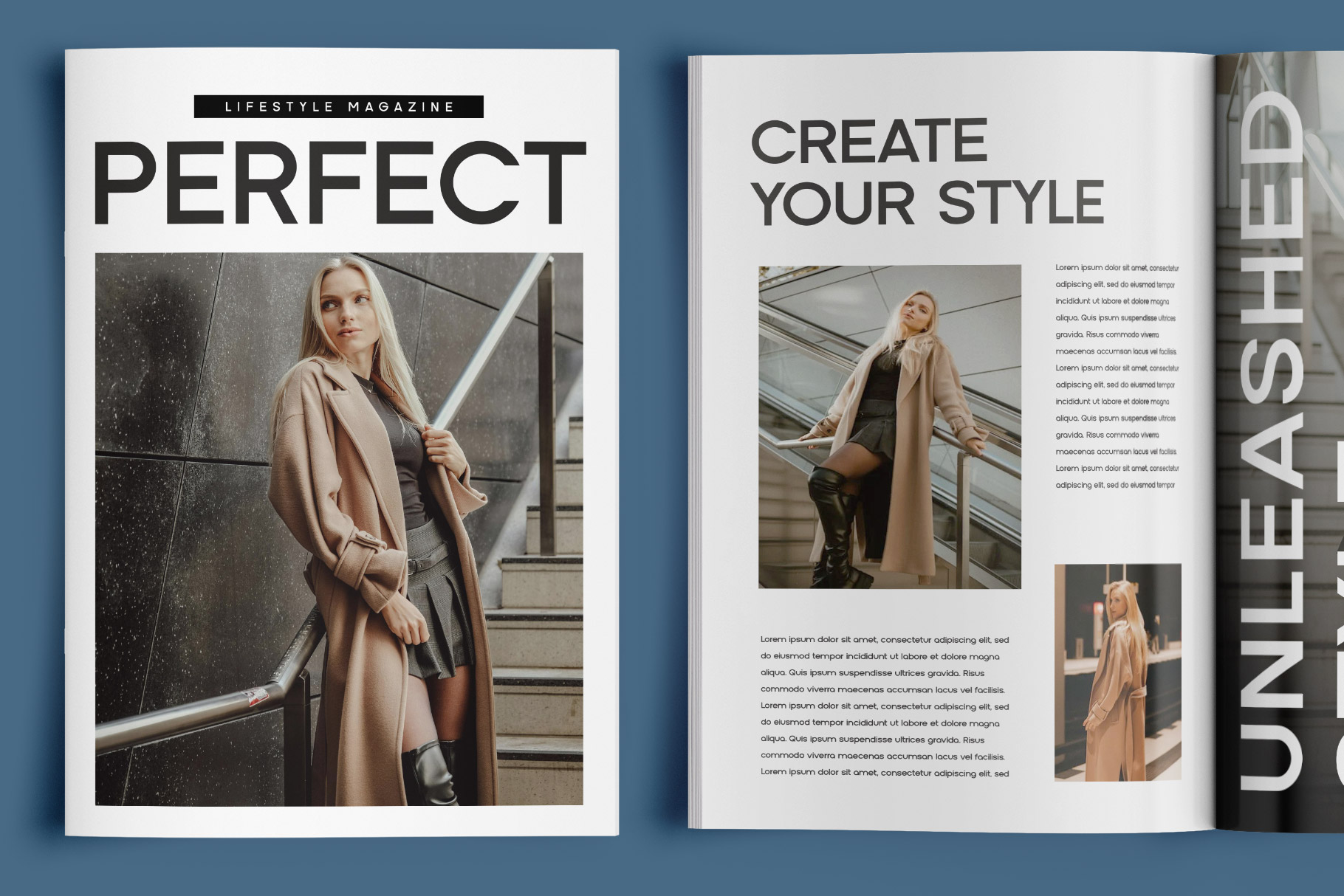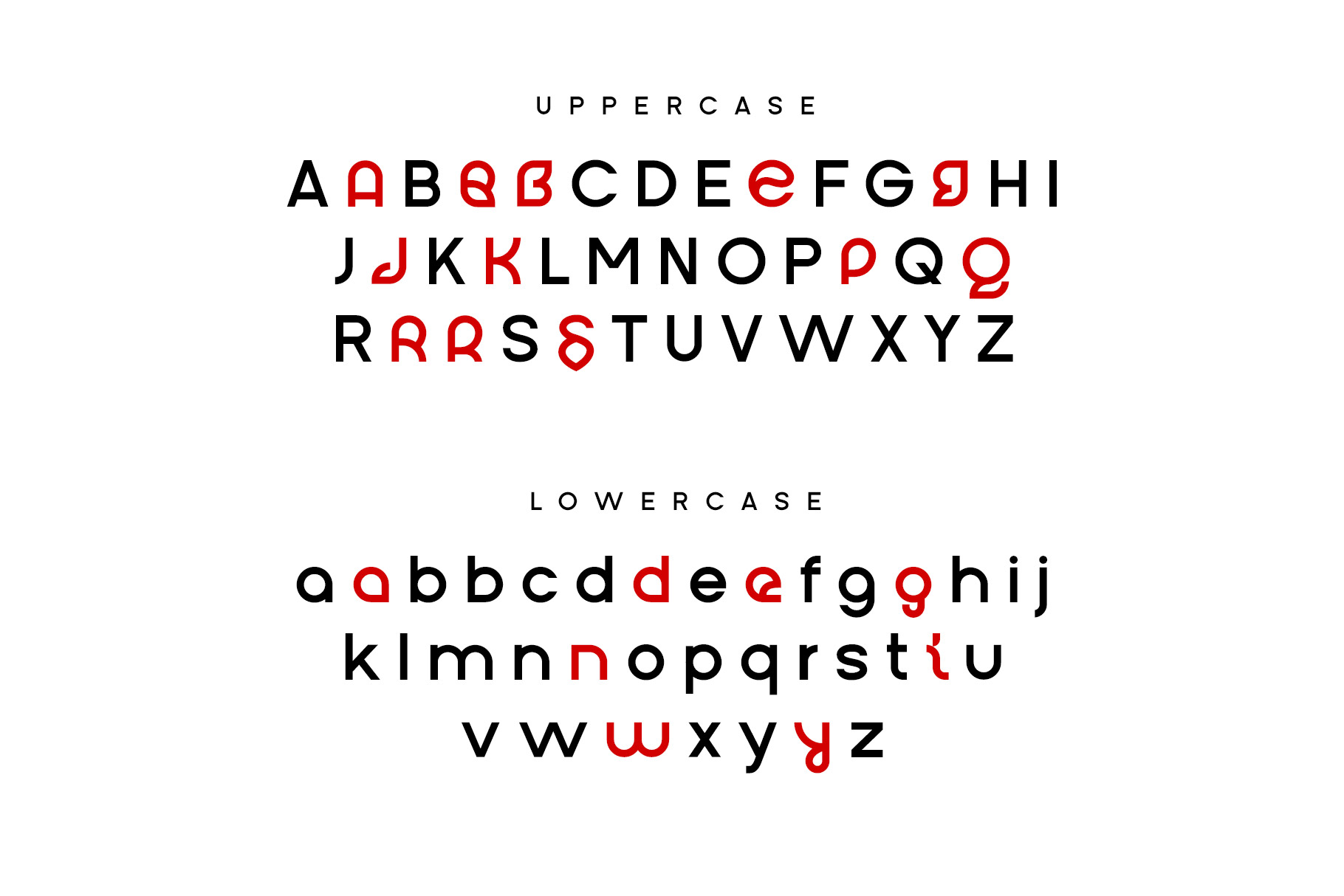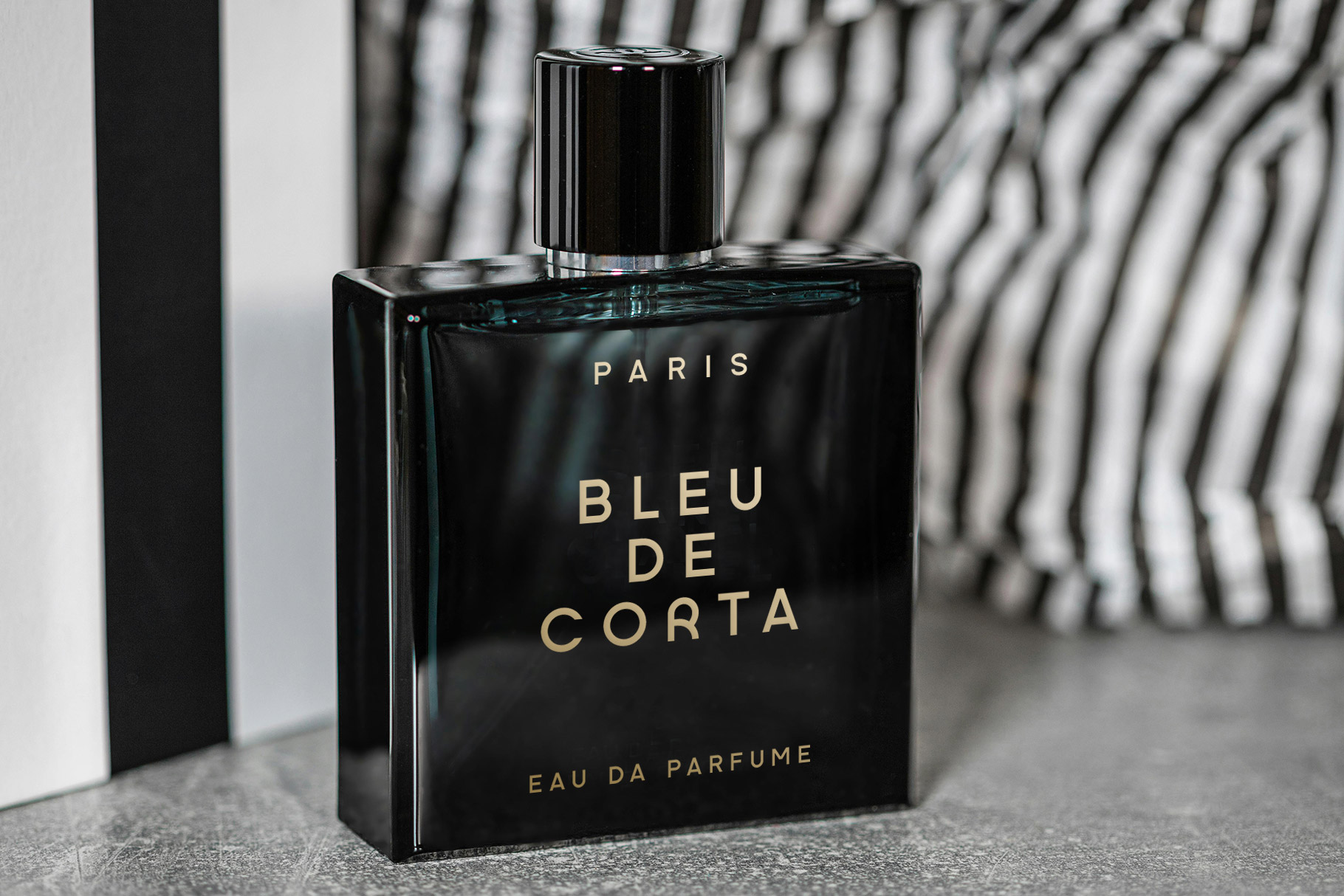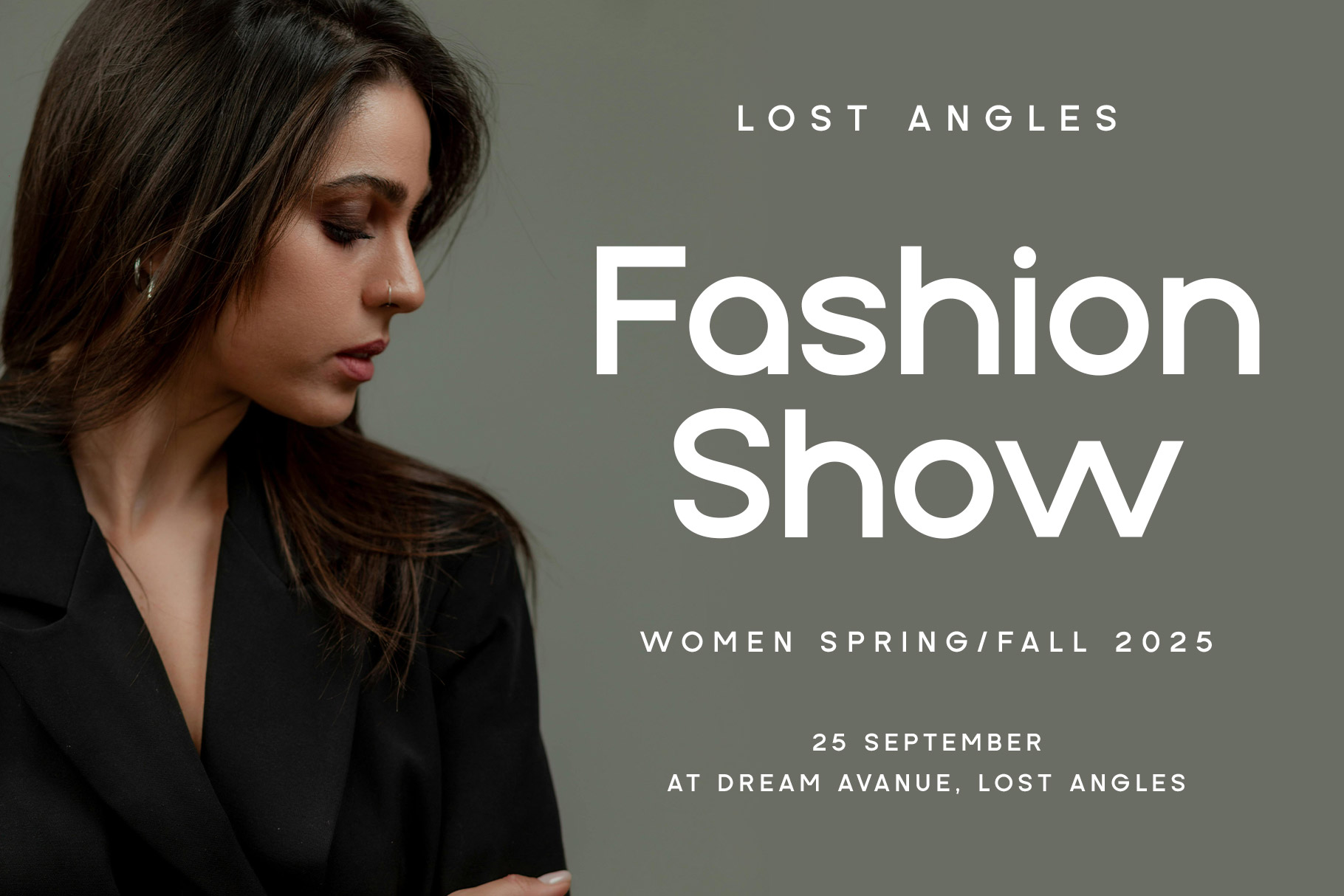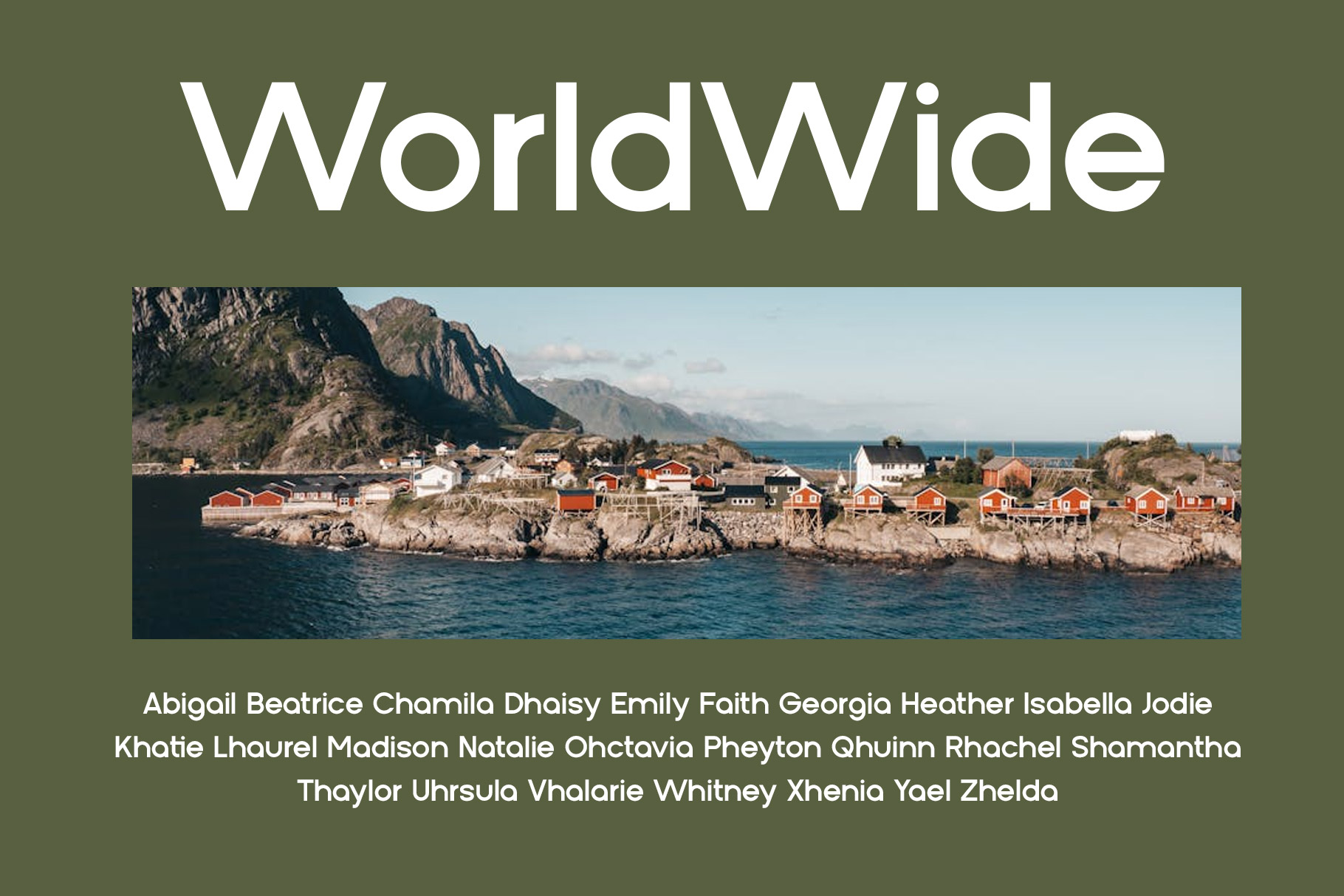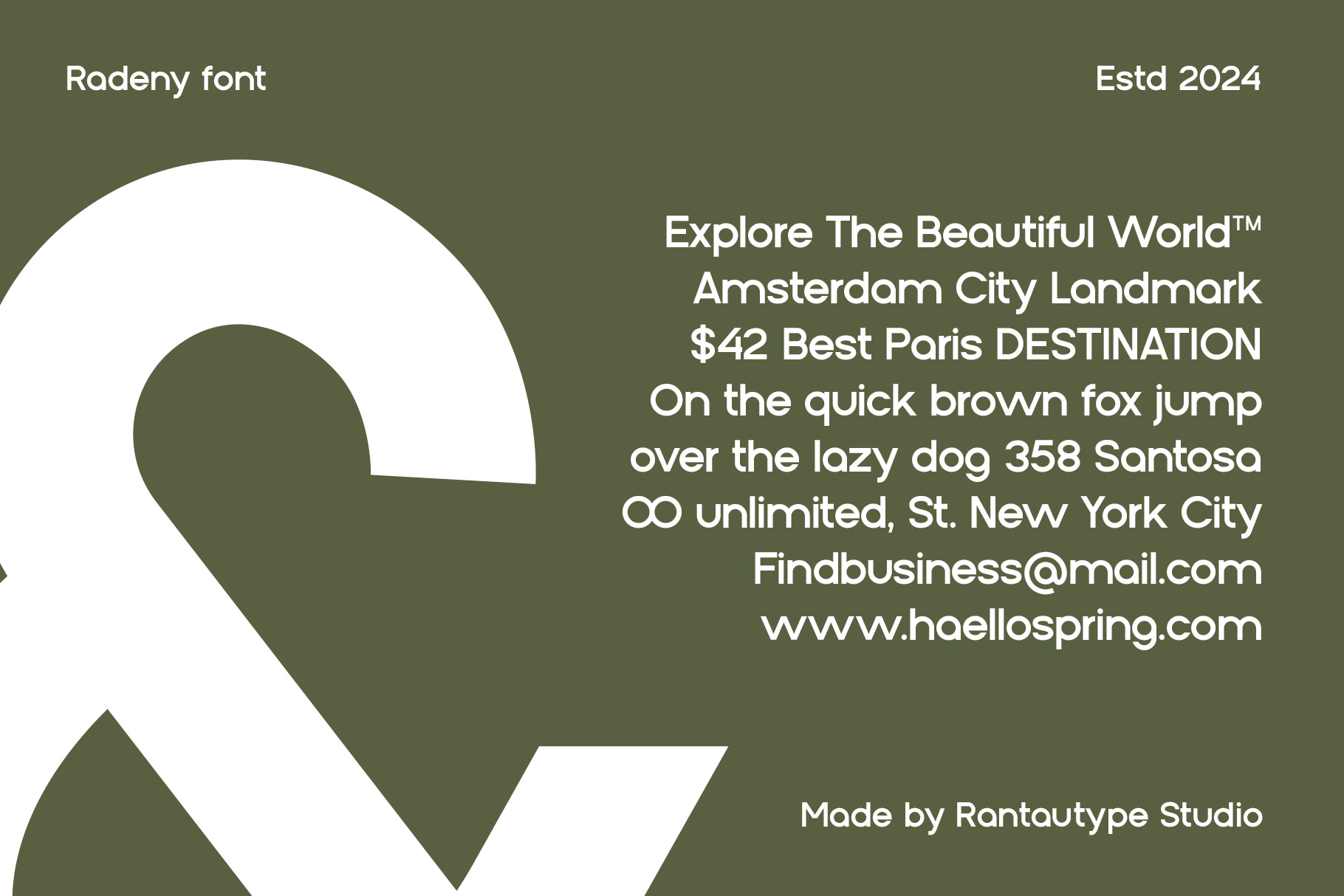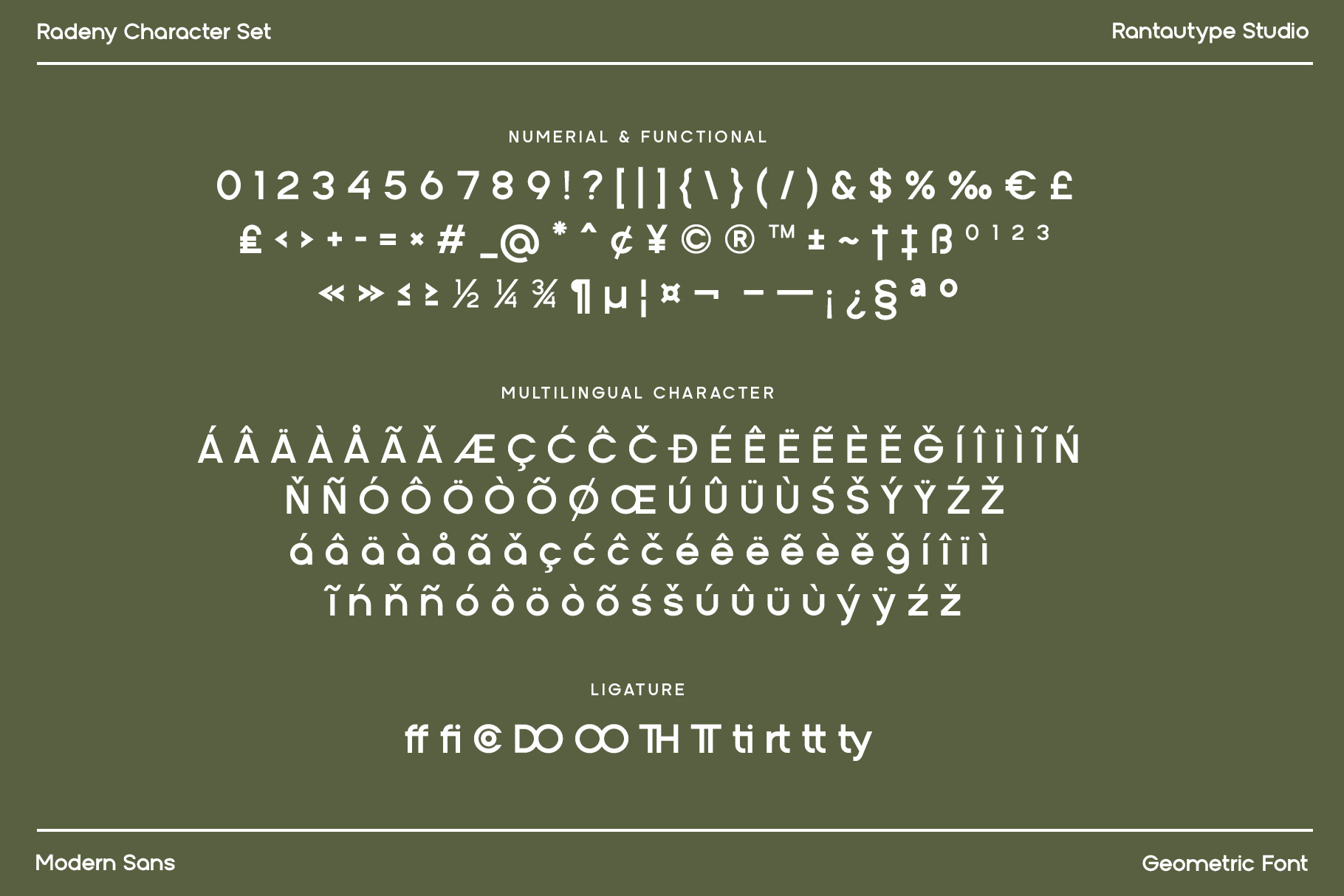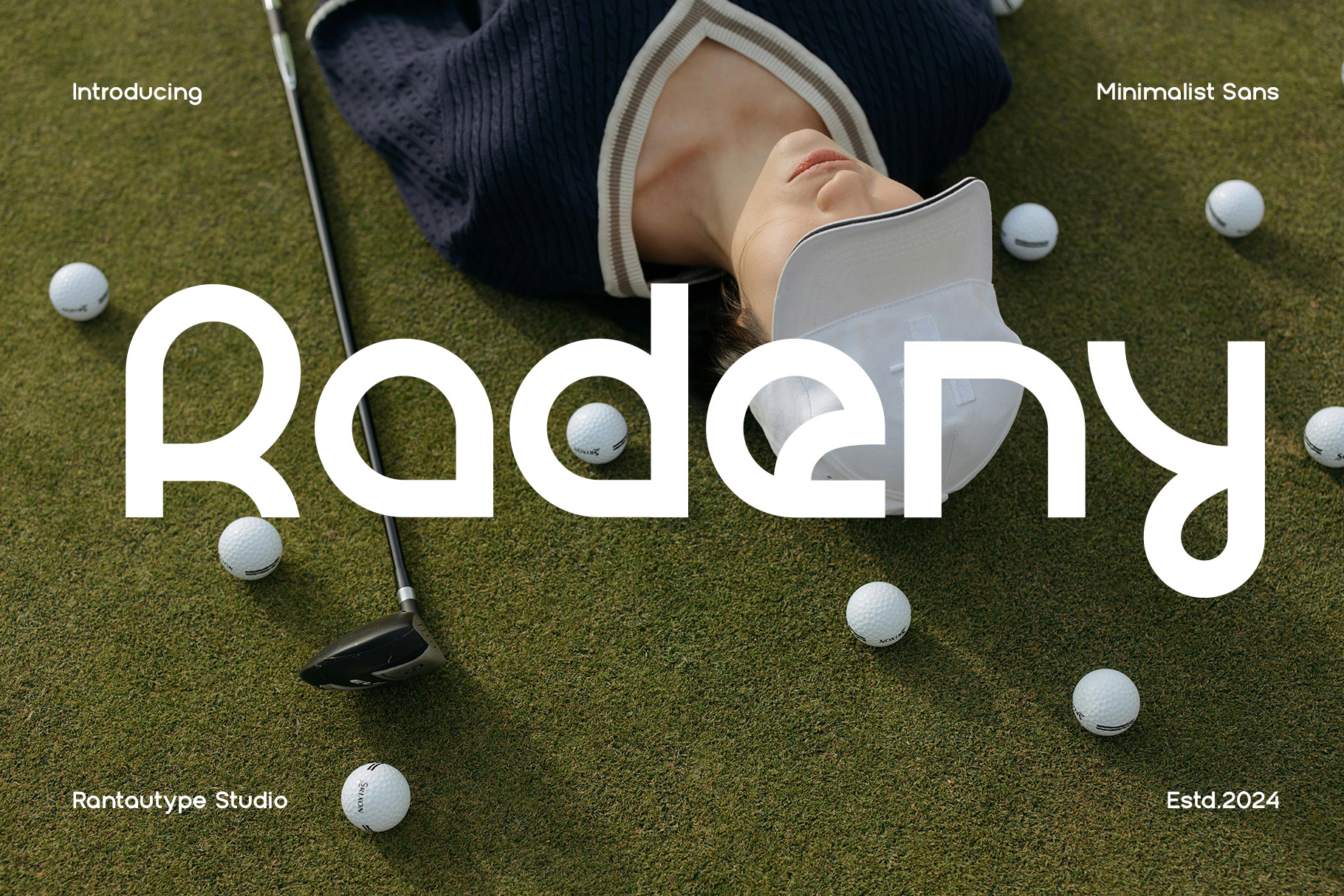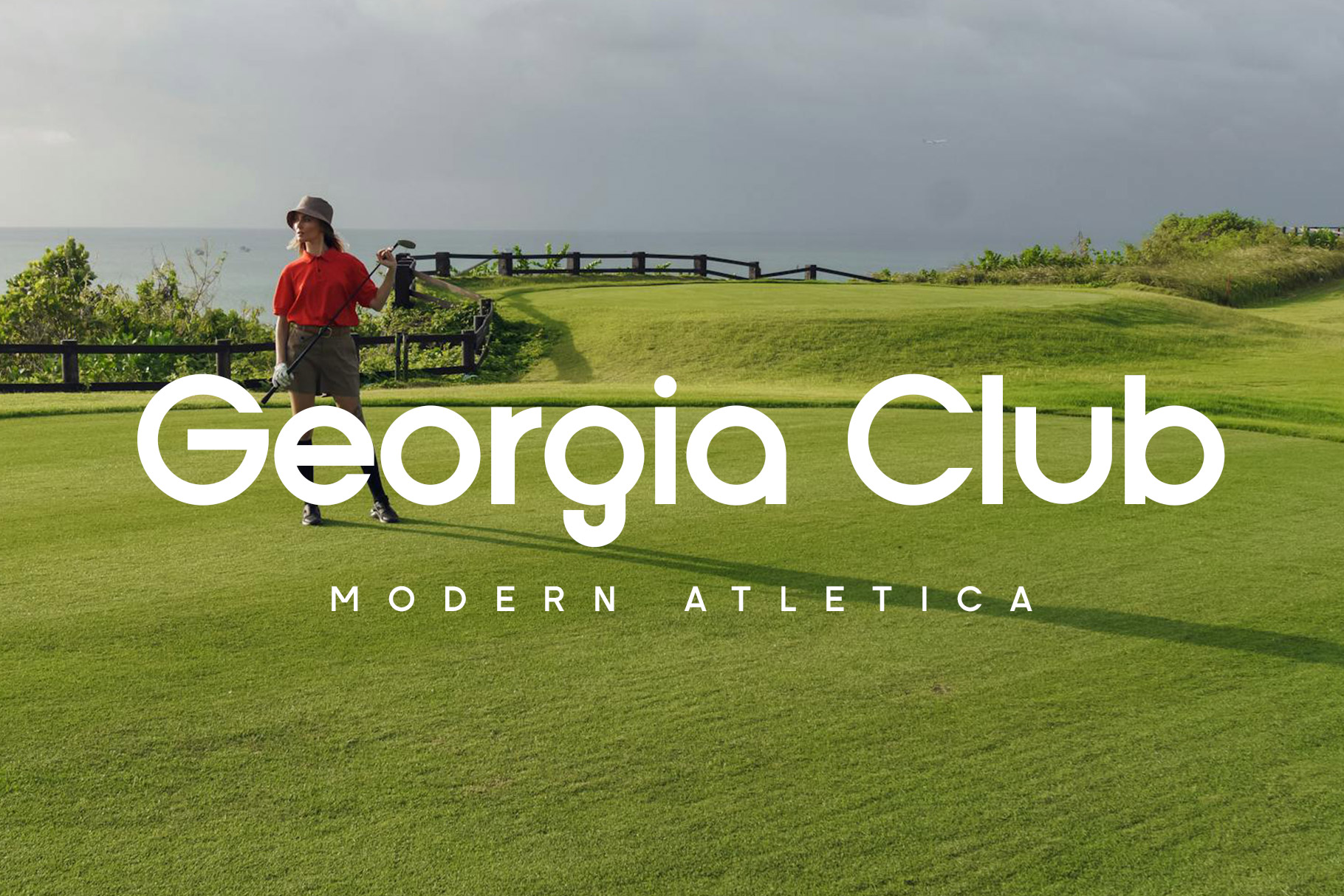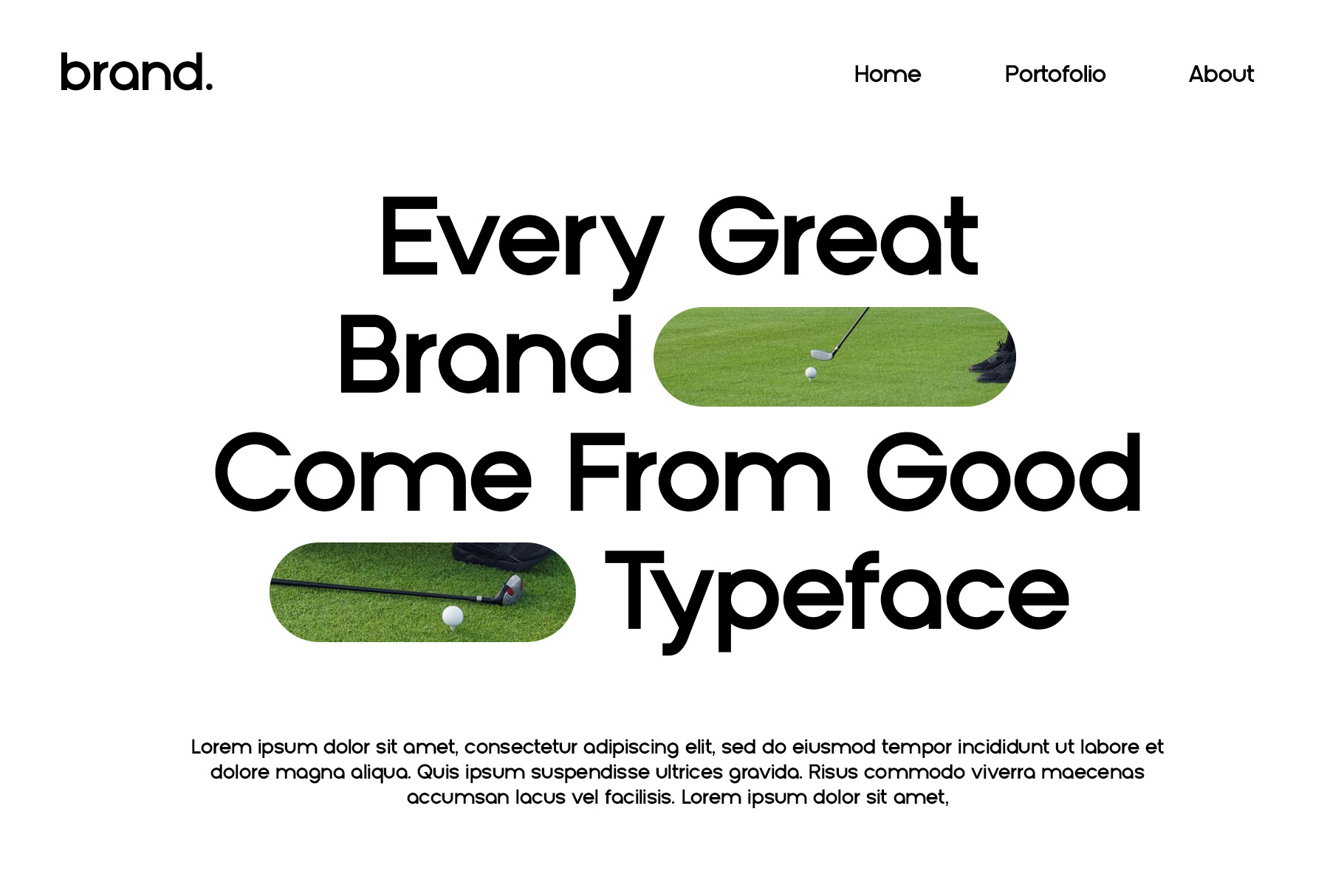
Radeny Minimalist Sans Font
Radeny is Minimialist sans serif font insprire by modern geometry shape. Radeny bring clean interpretation and elegant blending shape make your design project more awesome.
Radeny is a perfectly choice for any creative endeavor, chic, lifestyle design such as logotype, advertisements, watermark on photography, stationery, branding project, display and magazine, invitation, corporate brand, product design, label, business project and many other project with modern touch.